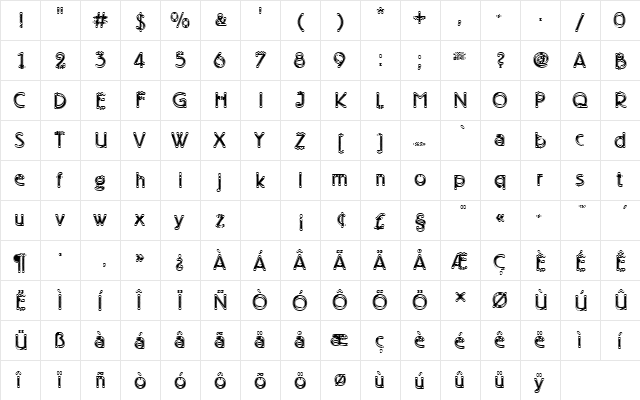
BerlinerGroDLigIn1 Regular
Design Context for BerlinerGroDLigIn1 Typeface
BerlinerGroDLigIn1 is a composed and adaptable typeface that performs quietly and consistently across a wide range of design contexts.